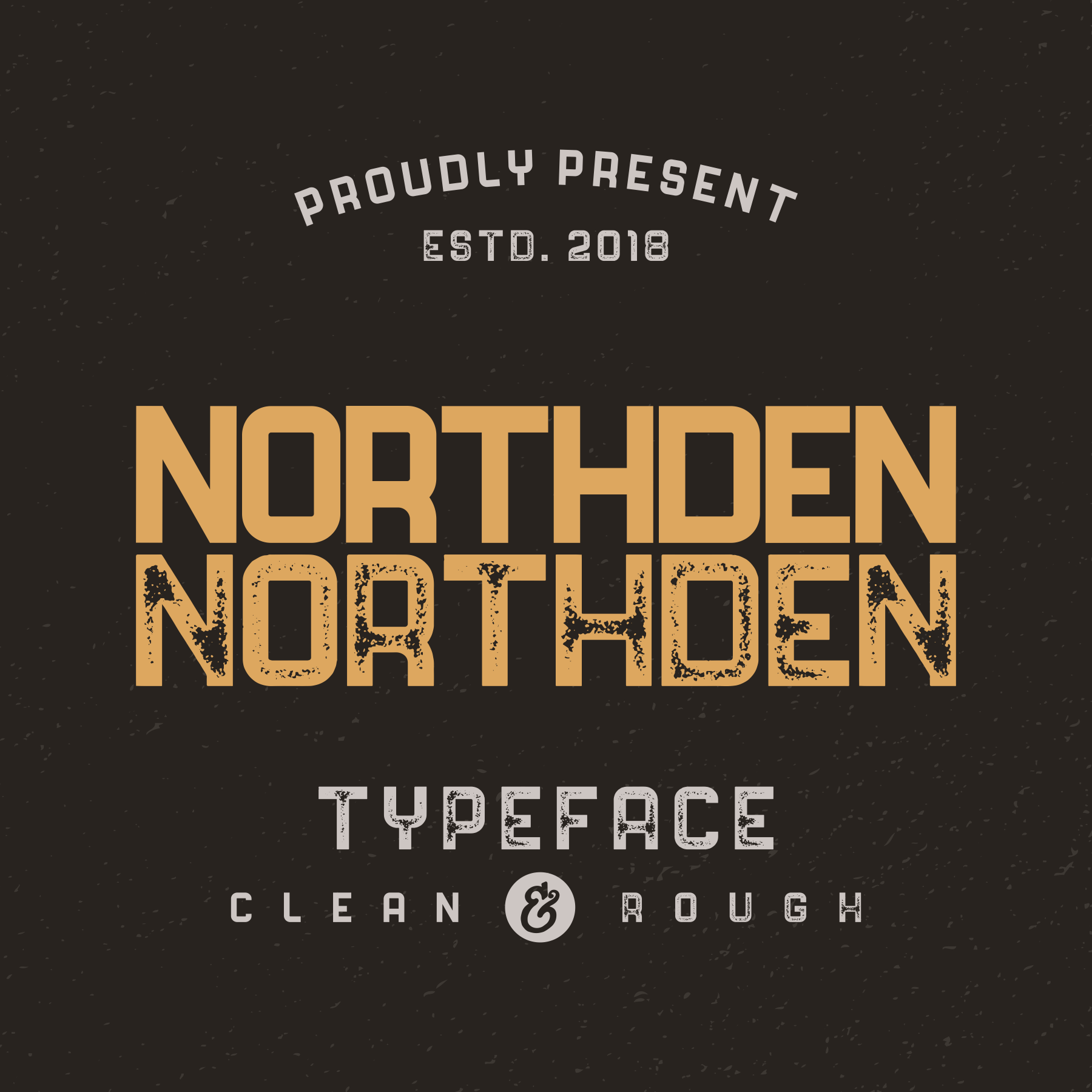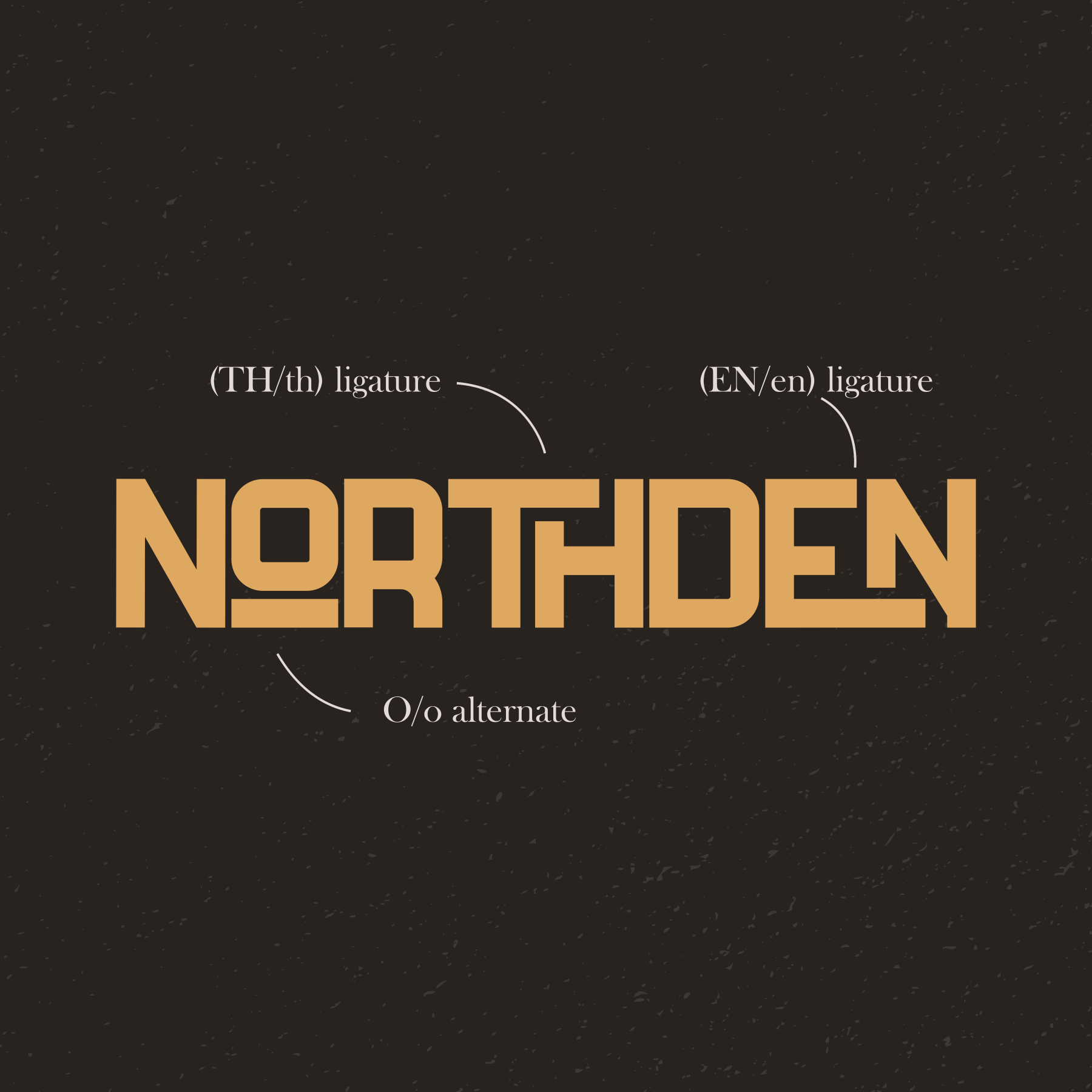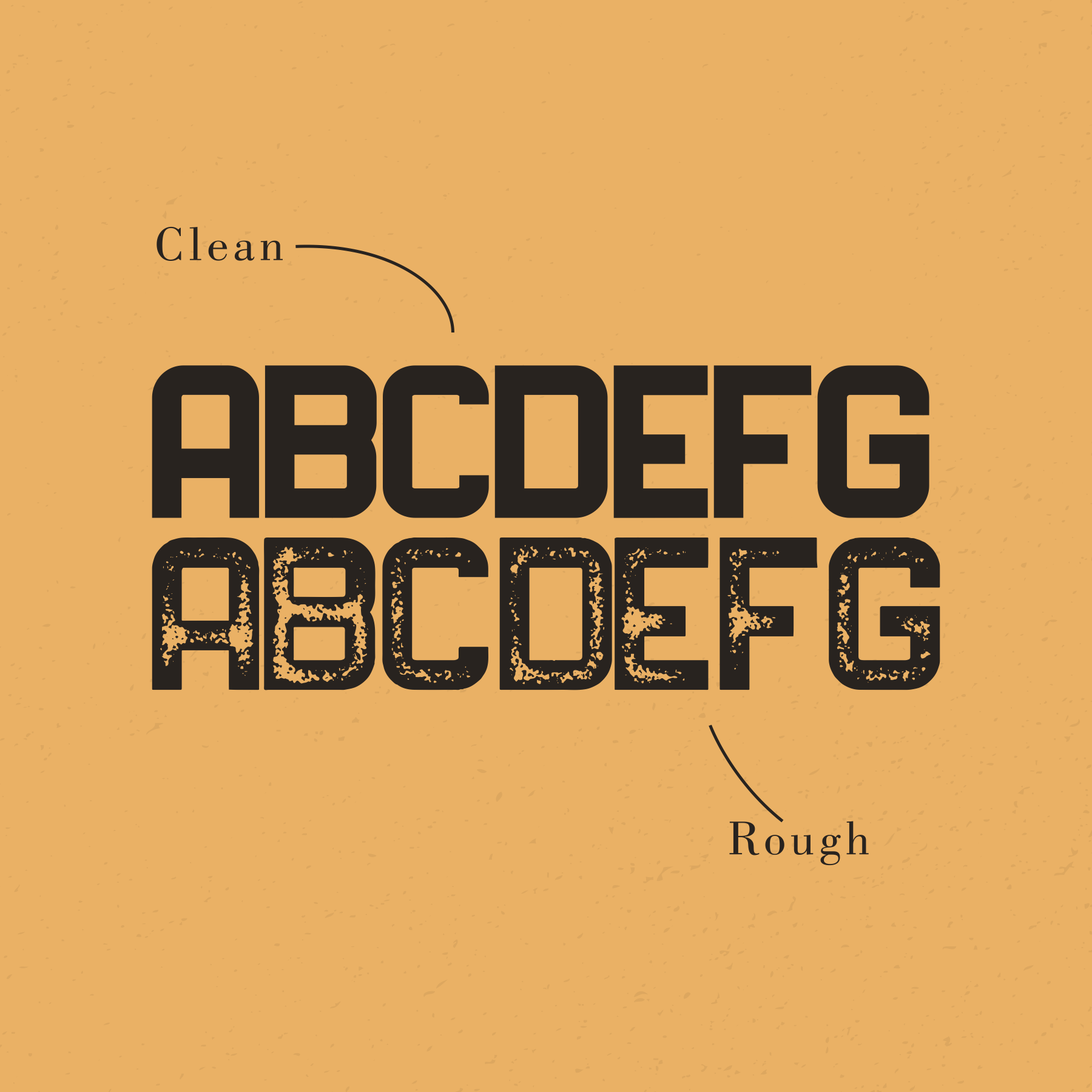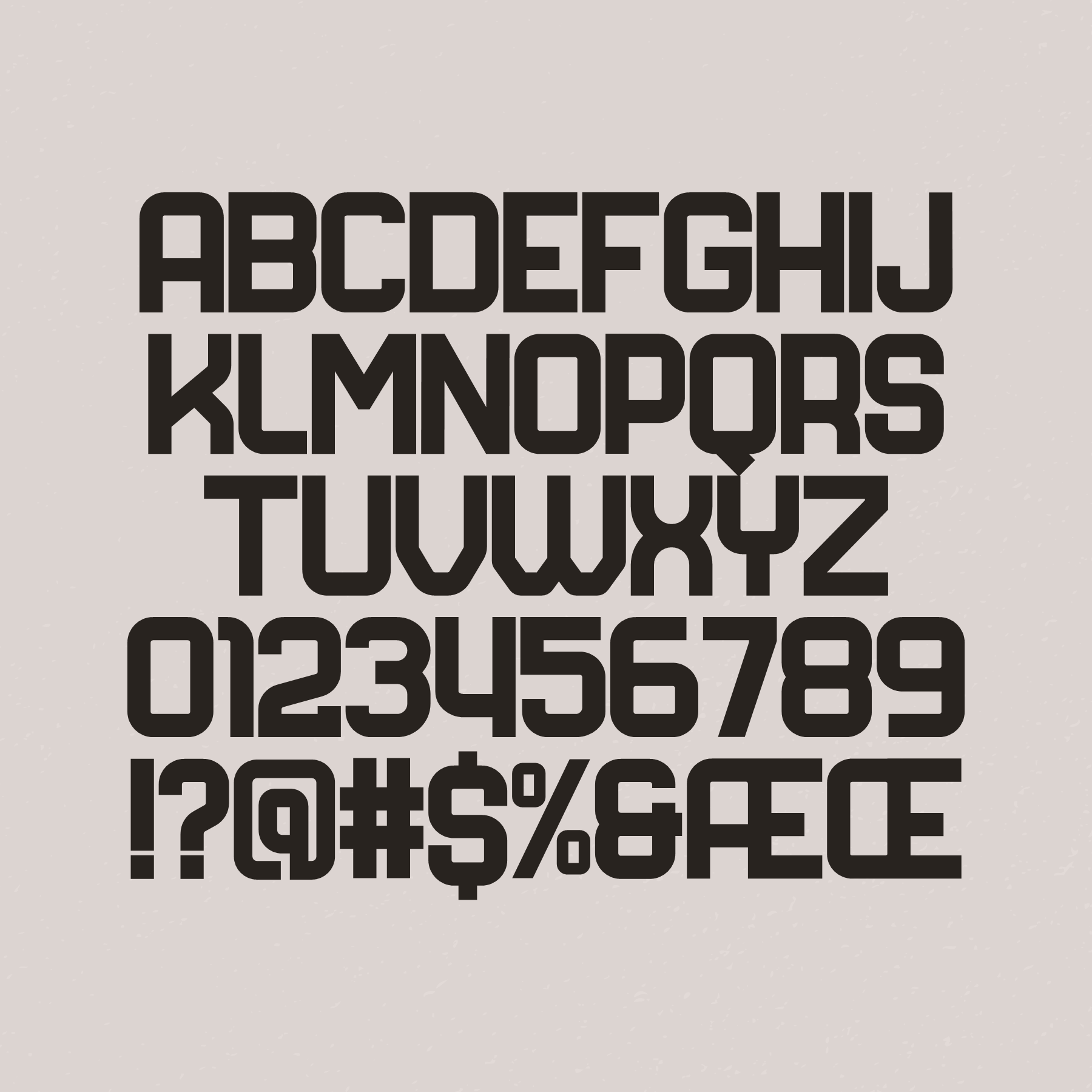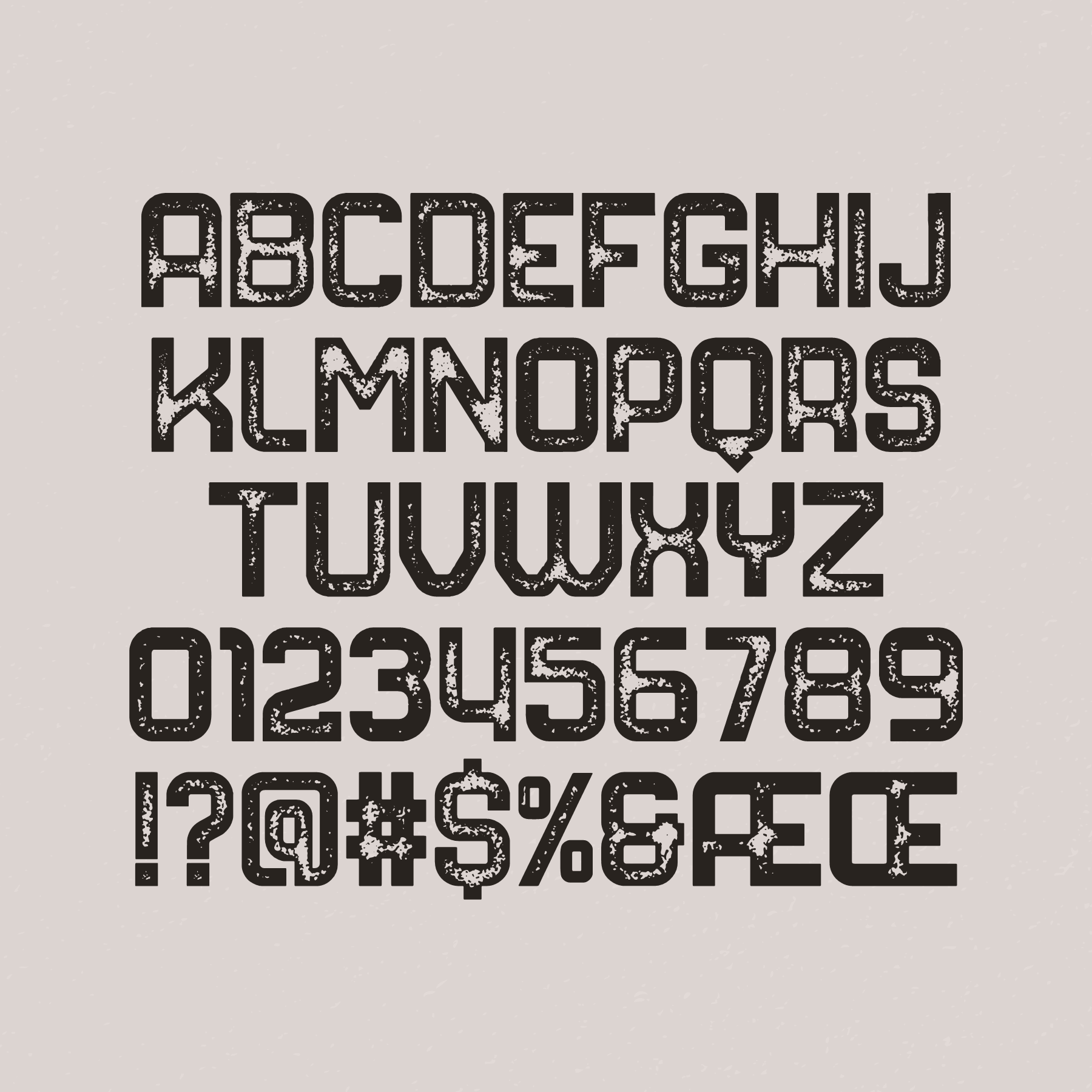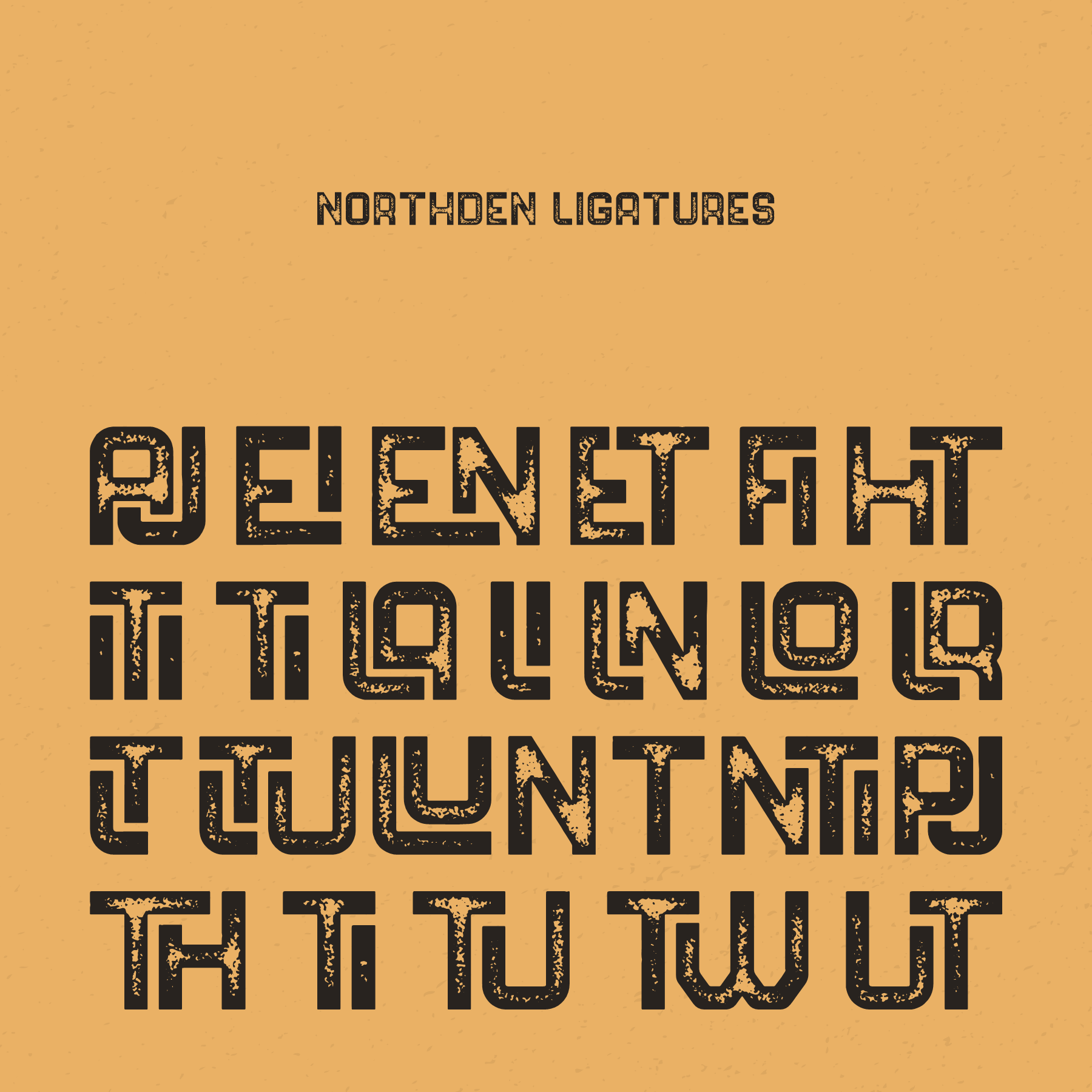
NORTHDEN TYPEFACE
Northden is a typeface font with a masculine style that is suitable for your design needs that need a classic, vintage touch, but still modern. This font is perfect, for any logo, product label, poster or design. This font is available in 2 styles, clean and rough textured.